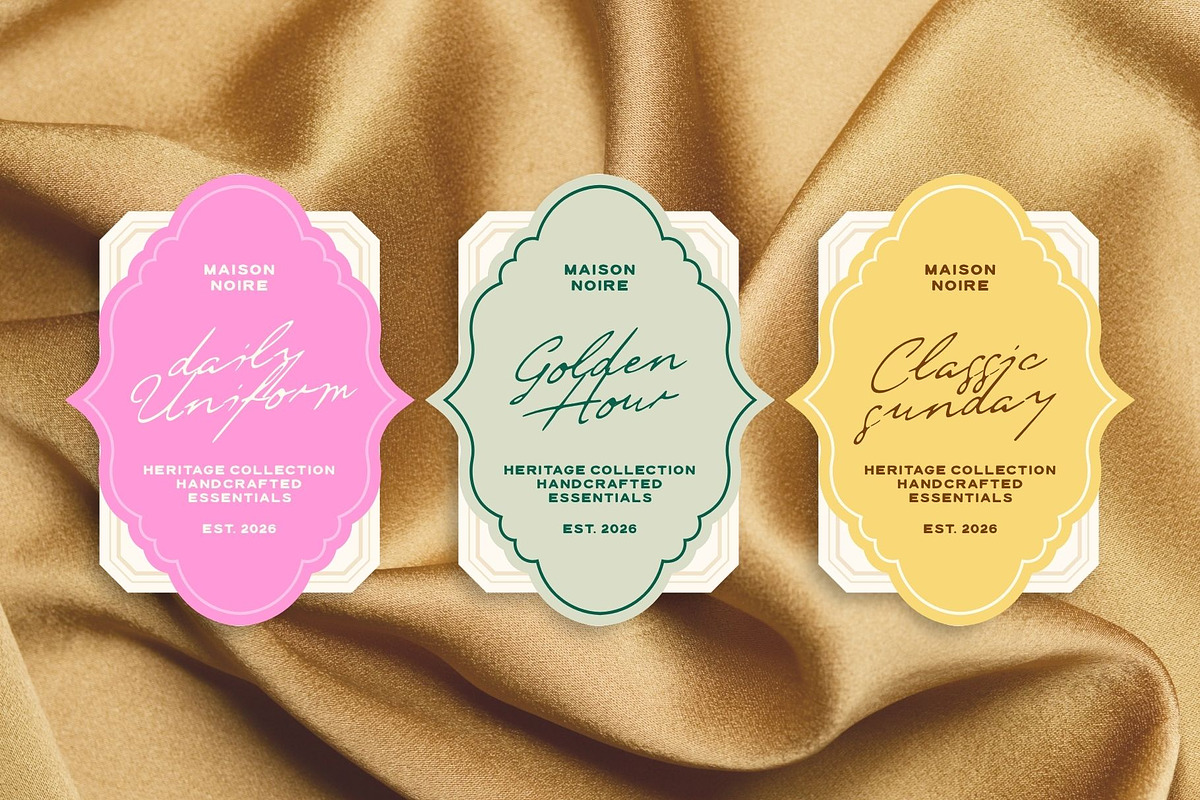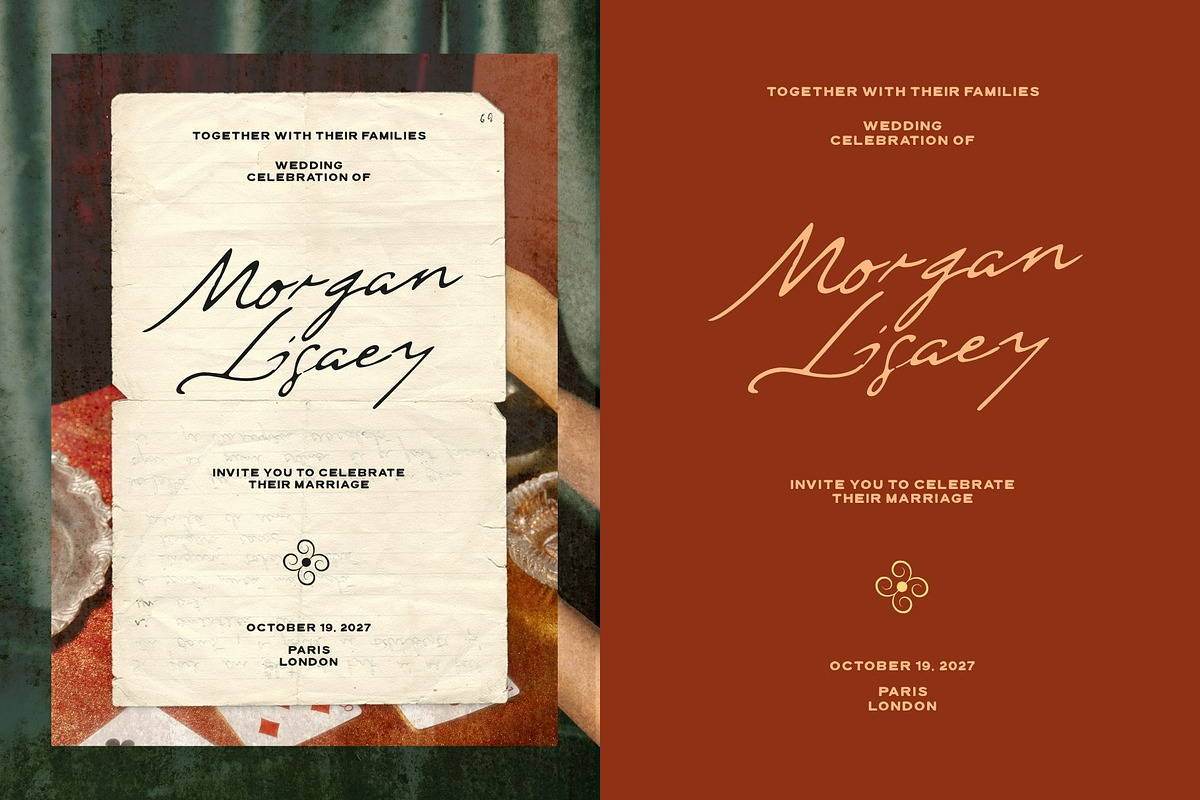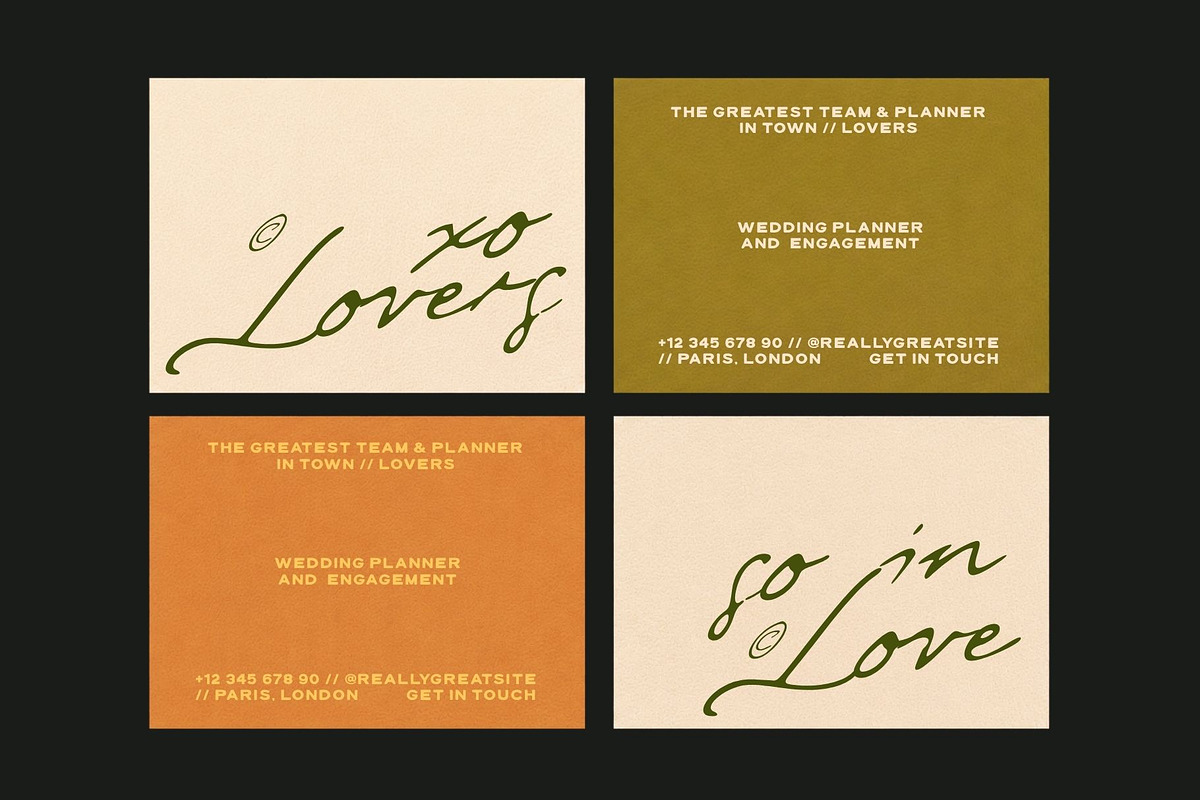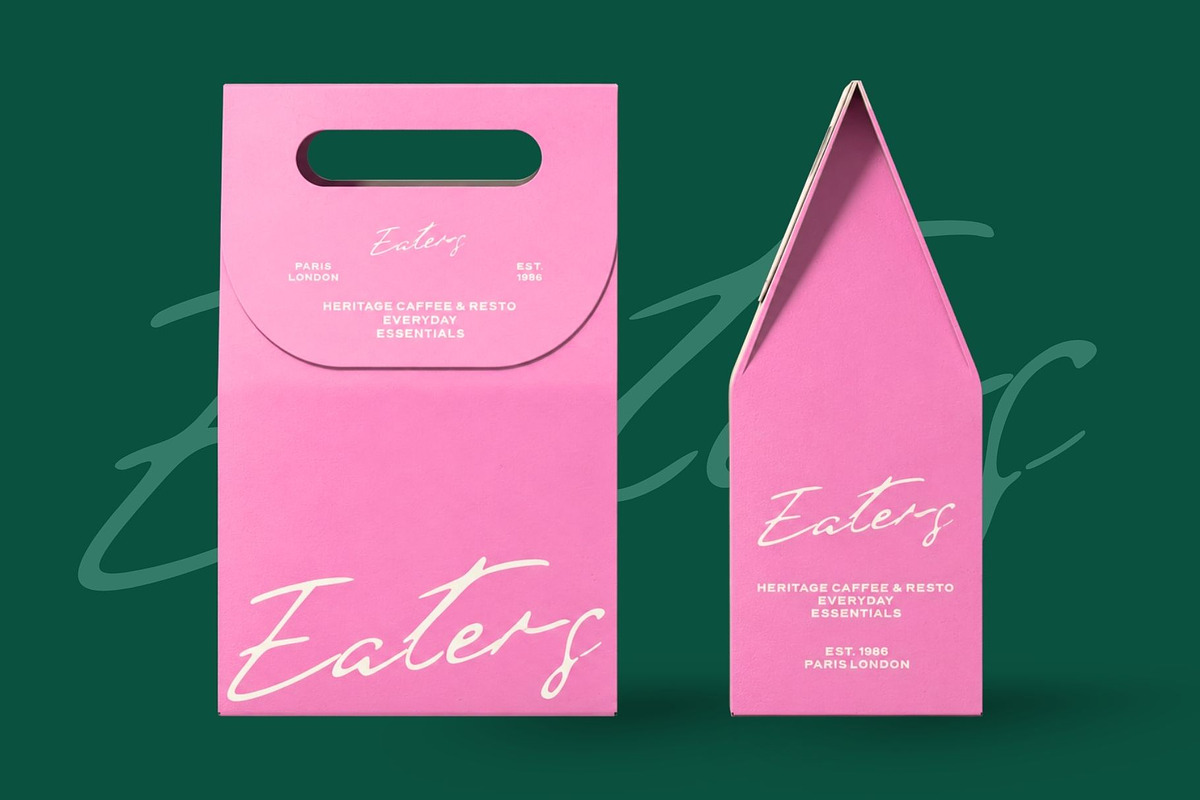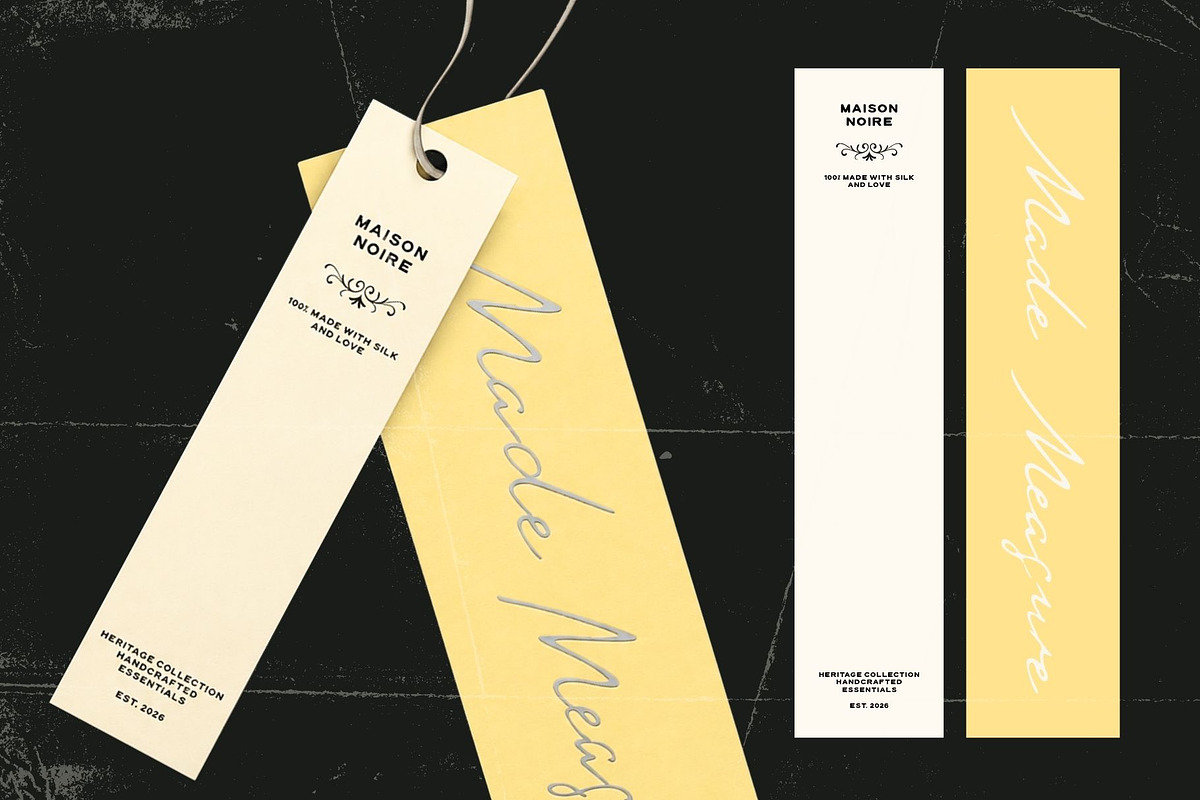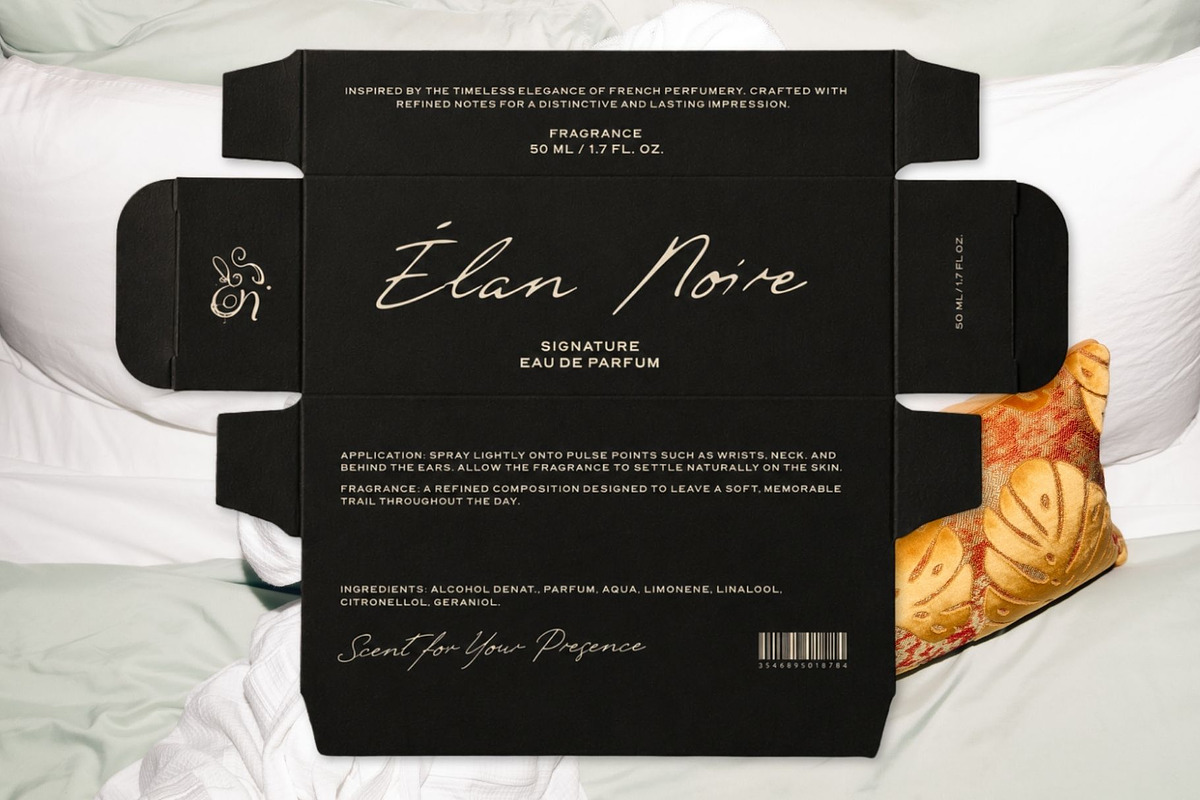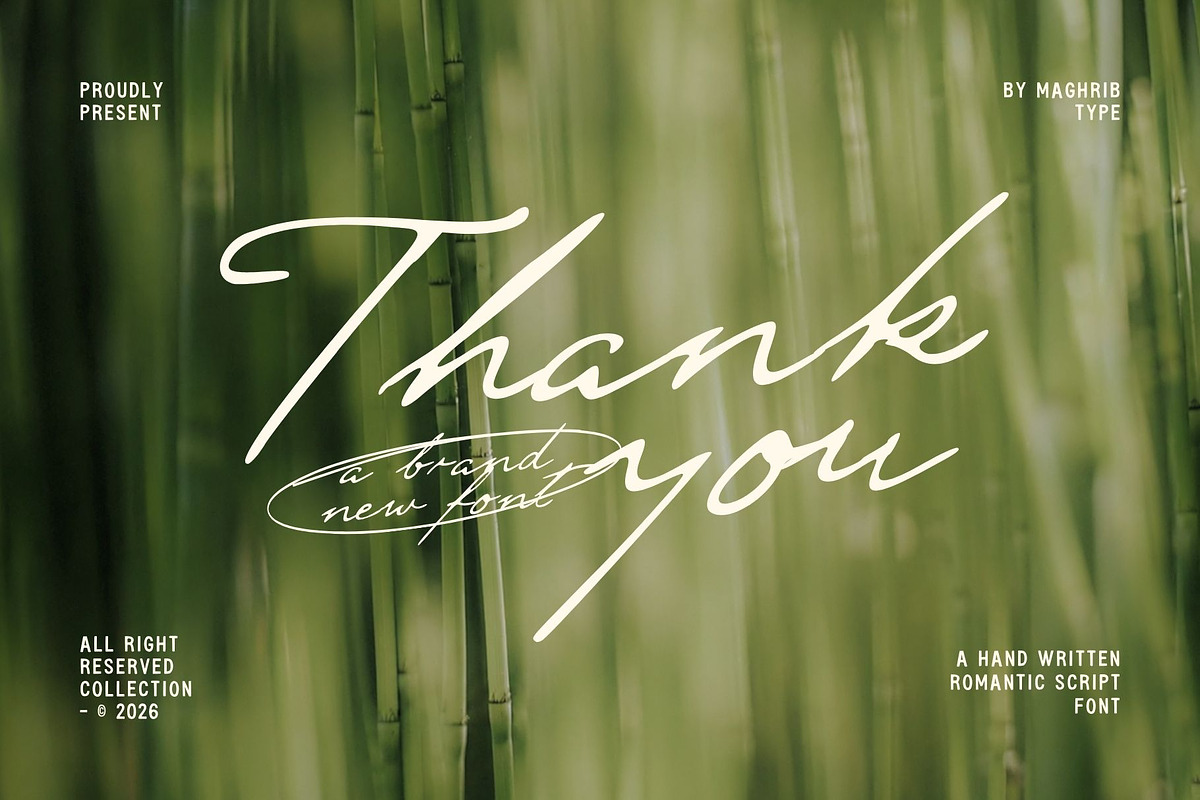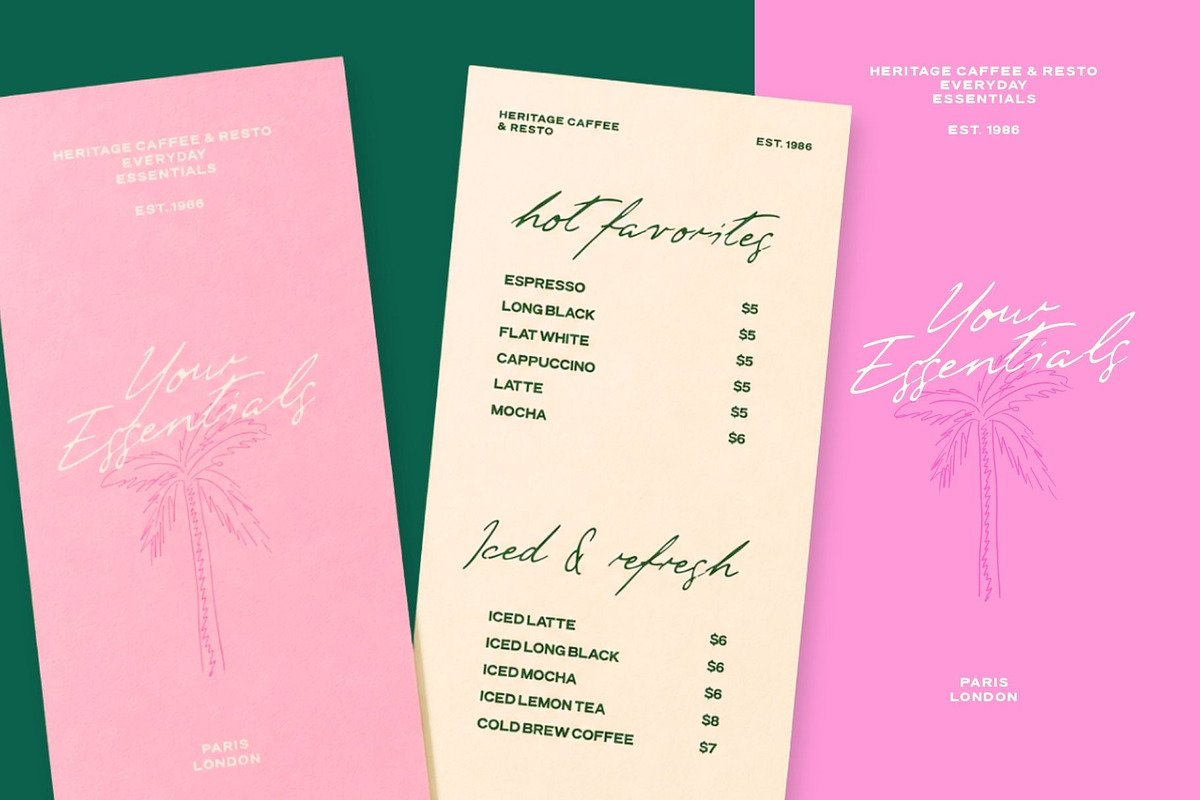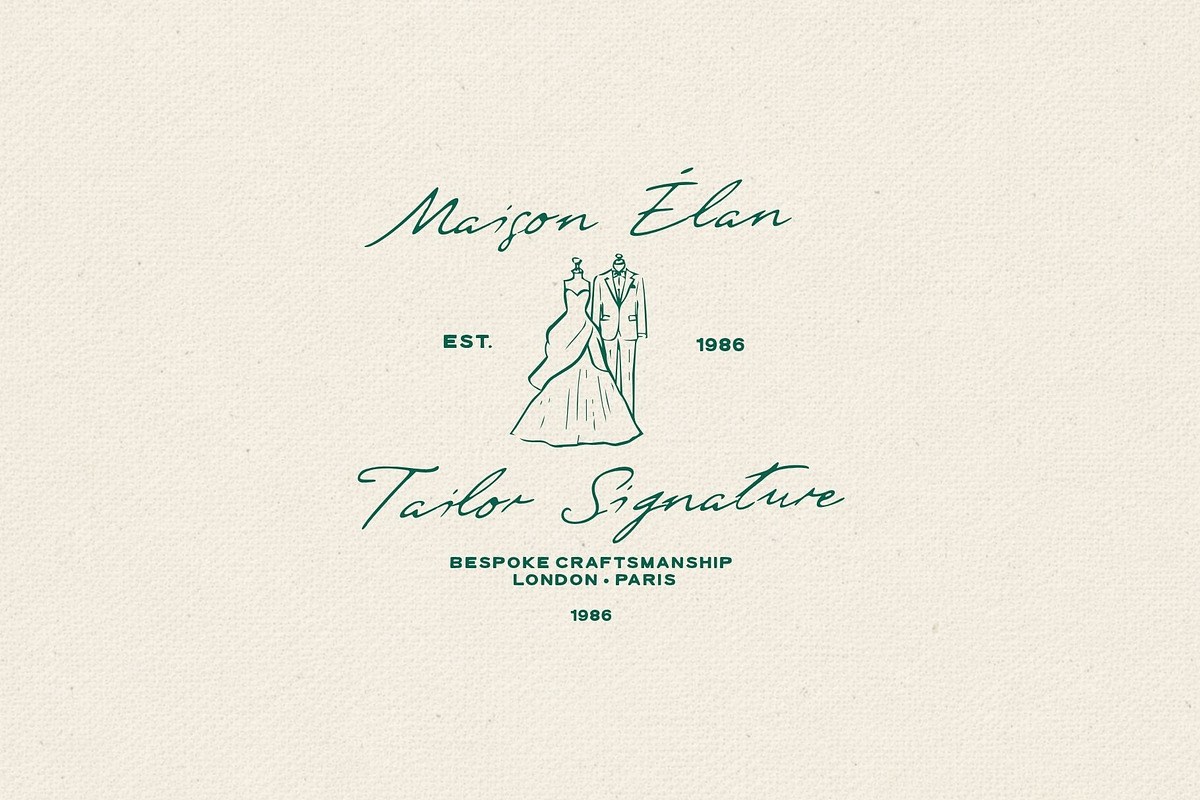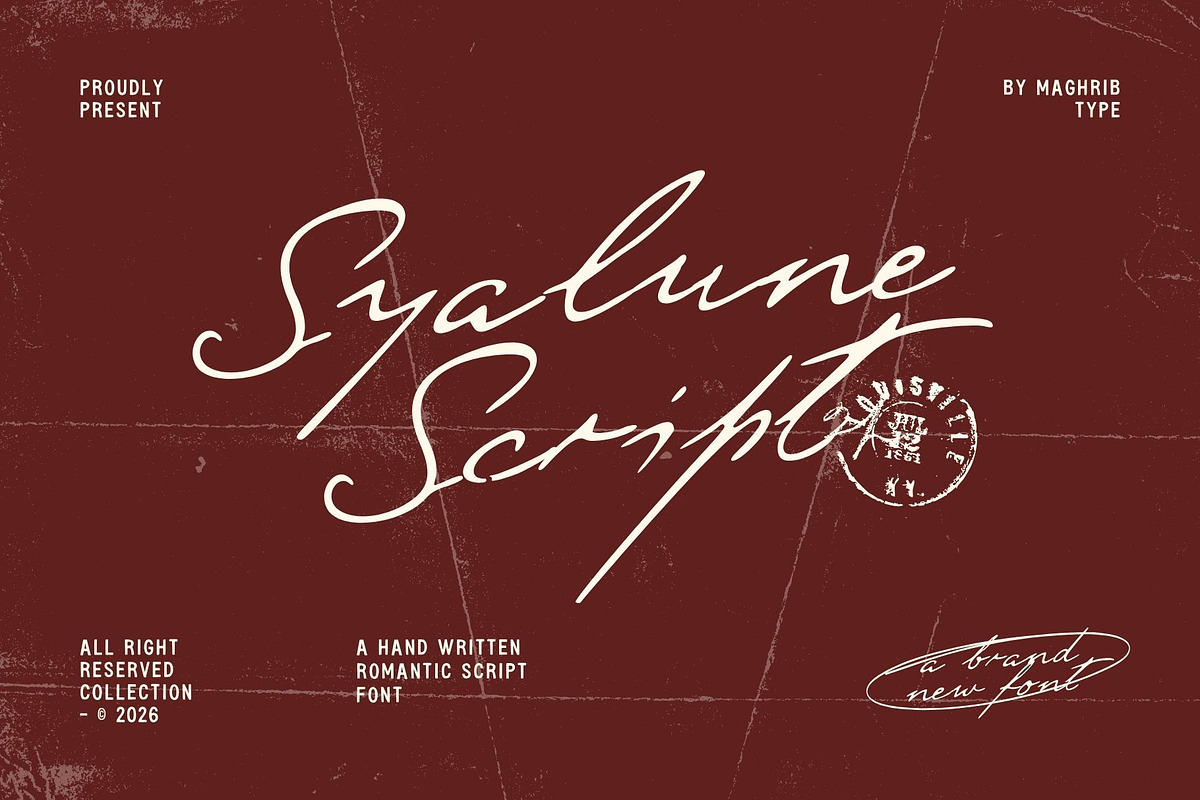
Syalune Script
Syalune Script is a handdrawn signature script font created with an elegant, romantic, and expressive handwritten character. Its flowing strokes, natural letter connections, and distinctive signature-style movement create a sophisticated yet personal look.
Inspired by handwritten signatures and expressive calligraphy, Syalune Script brings a graceful and artistic touch to both modern and vintage-inspired designs. The combination of elegant curves and spontaneous handwritten details makes it versatile for creating memorable visual identities.
Syalune Script is perfect for fashion branding, wedding invitations, beauty and cosmetic branding, perfume packaging, boutique logos, café branding, stationery, editorial layouts, social media graphics, product packaging, personal branding, and romantic lifestyle projects.
Whether used as a logo, headline, brand name, packaging detail, or statement typography, Syalune Script adds a refined handwritten personality to your design.
Syalune Script is designed to bring an authentic handwritten signature feel to creative projects that need elegance, personality, and a distinctive visual presence.